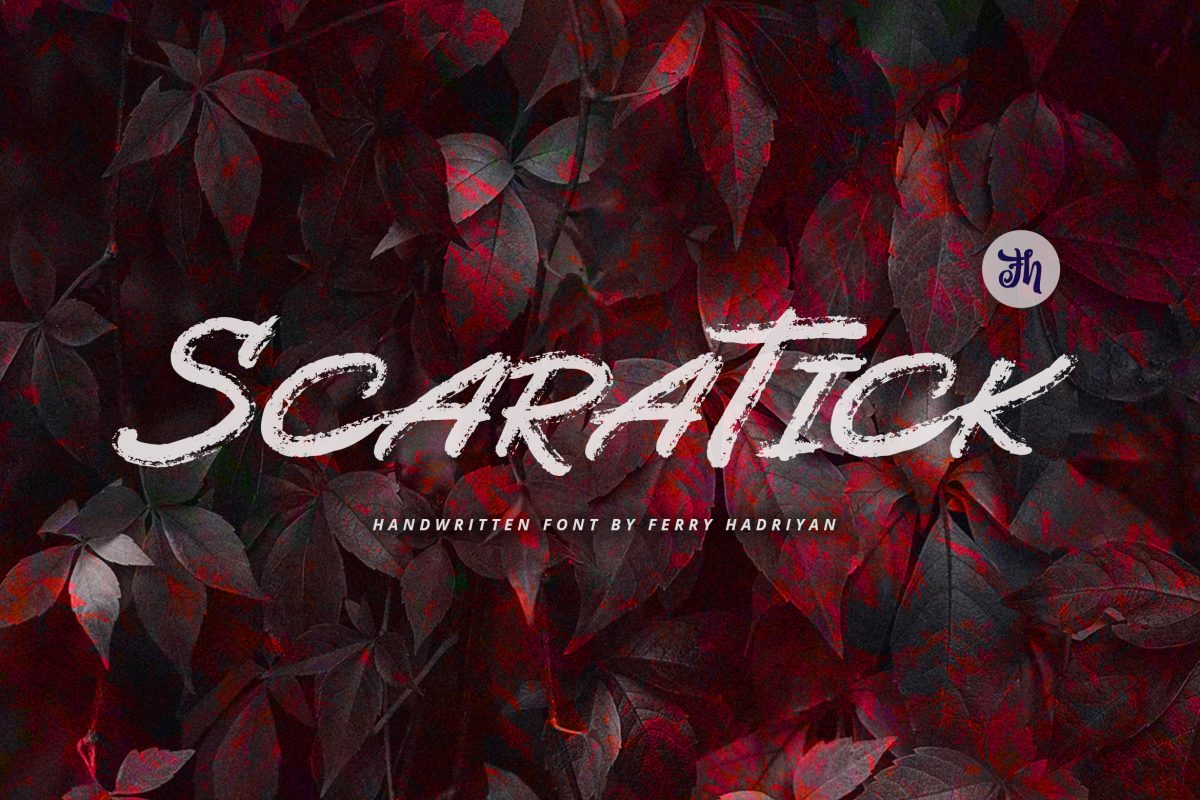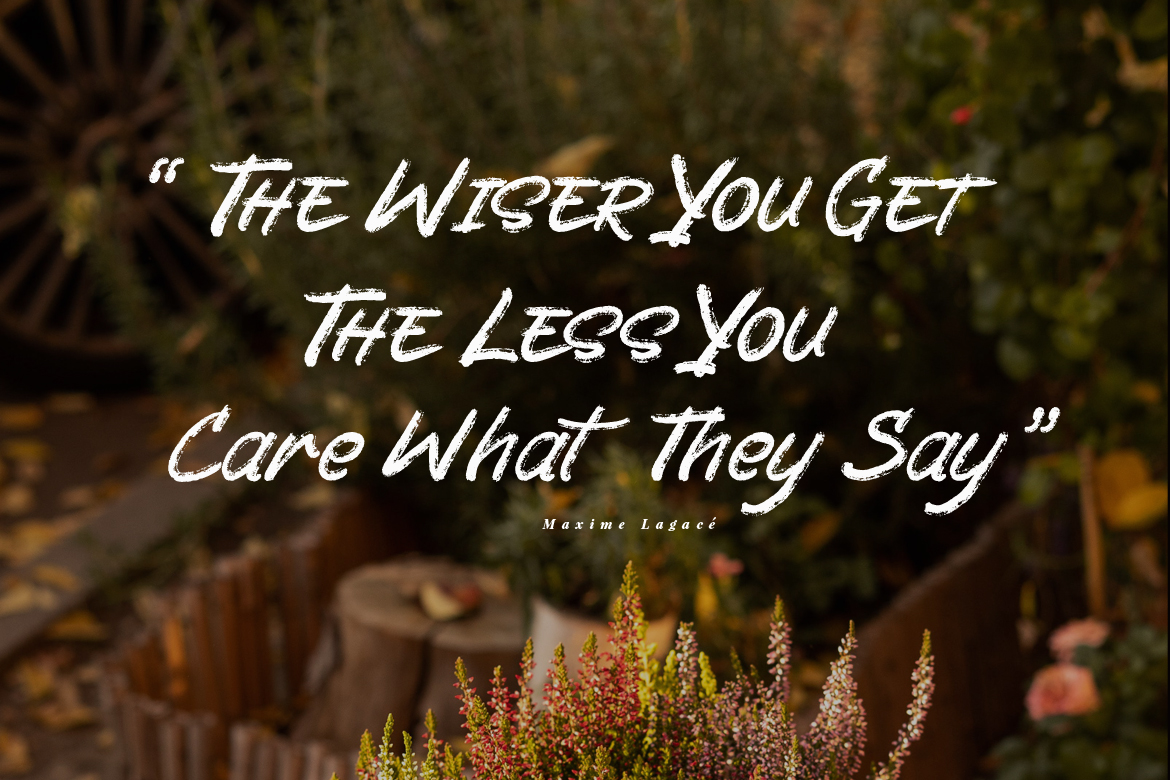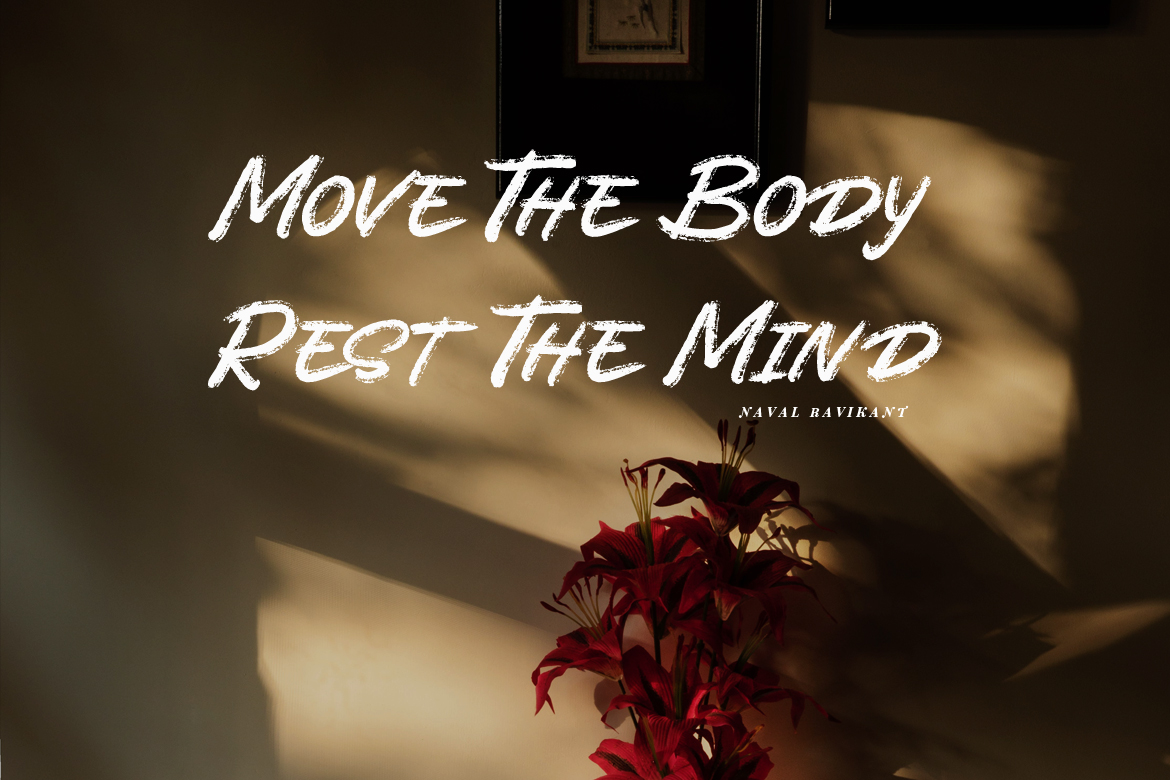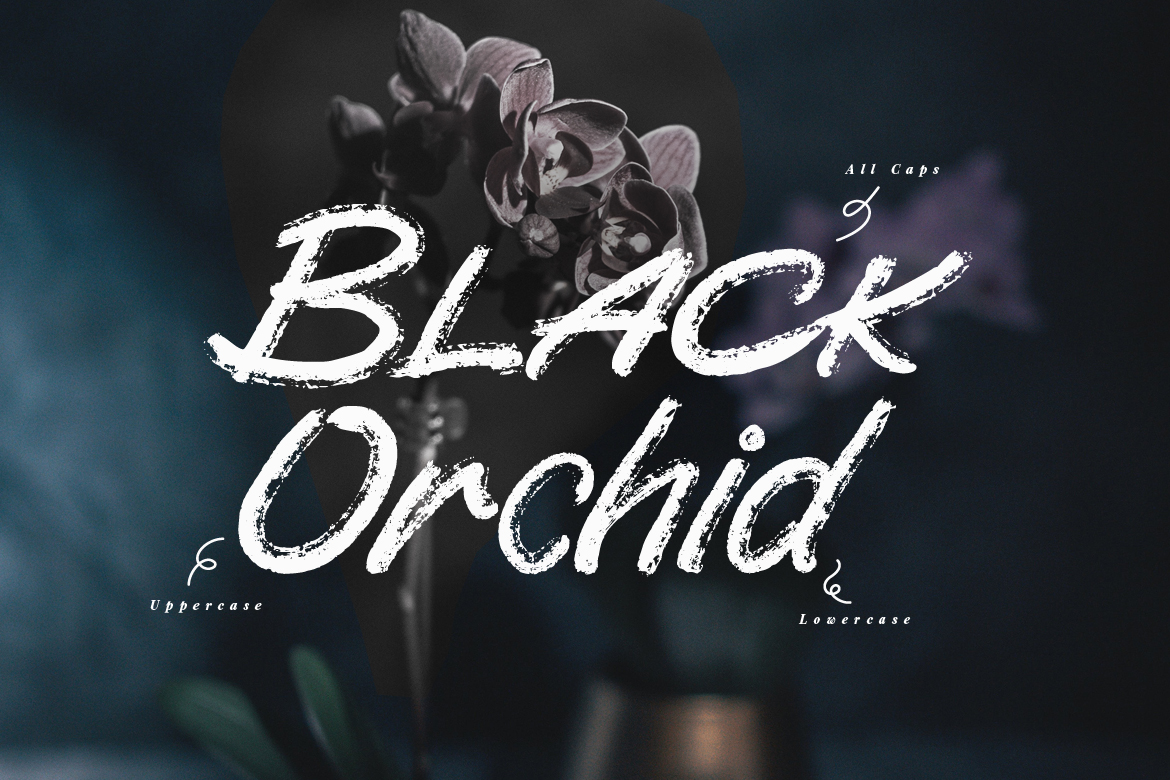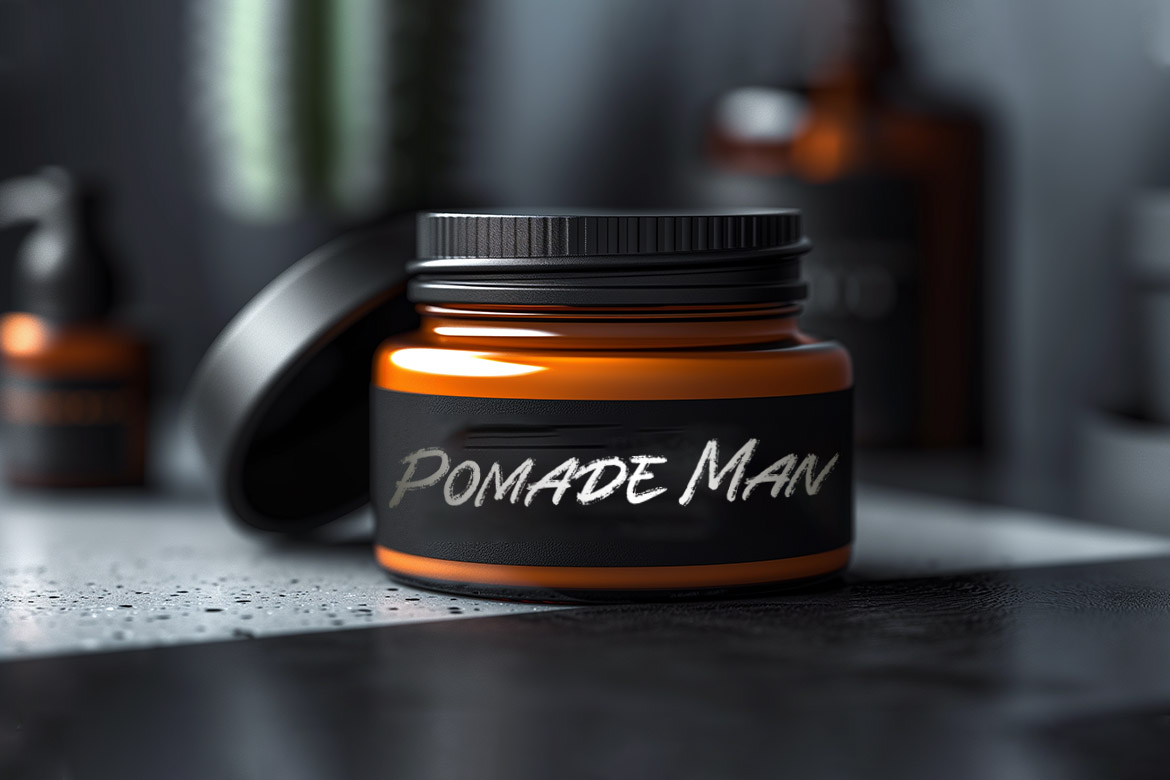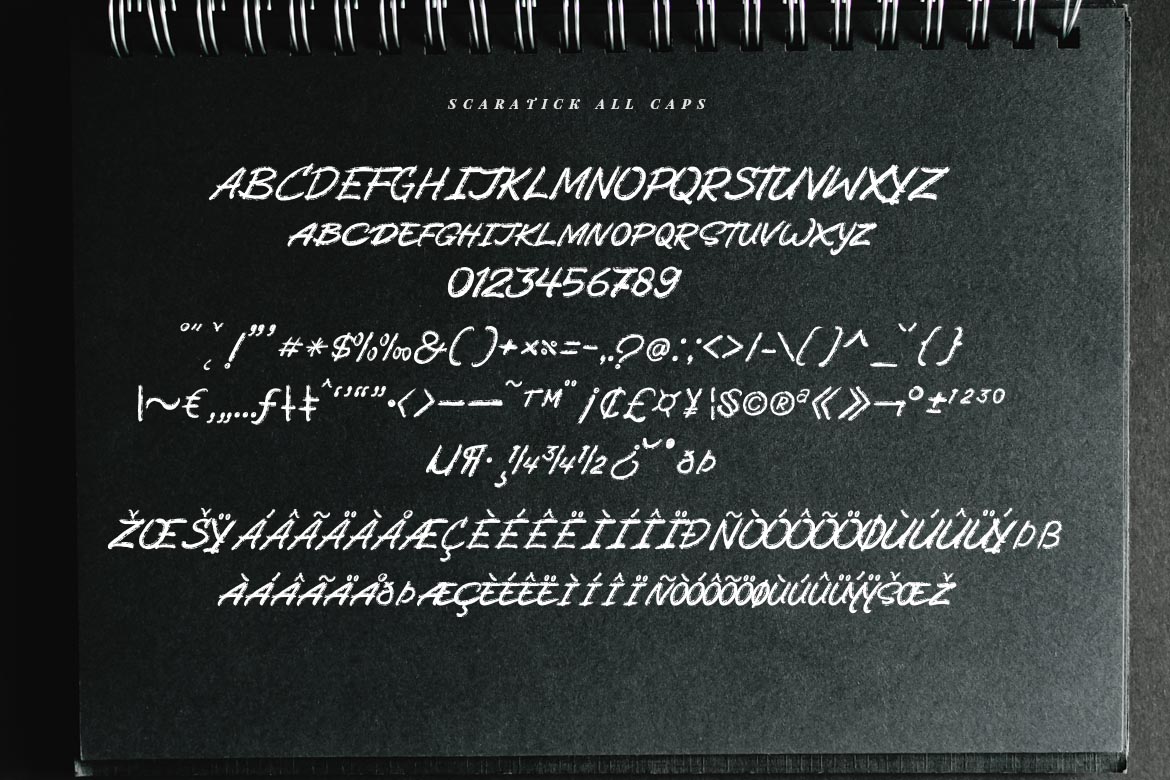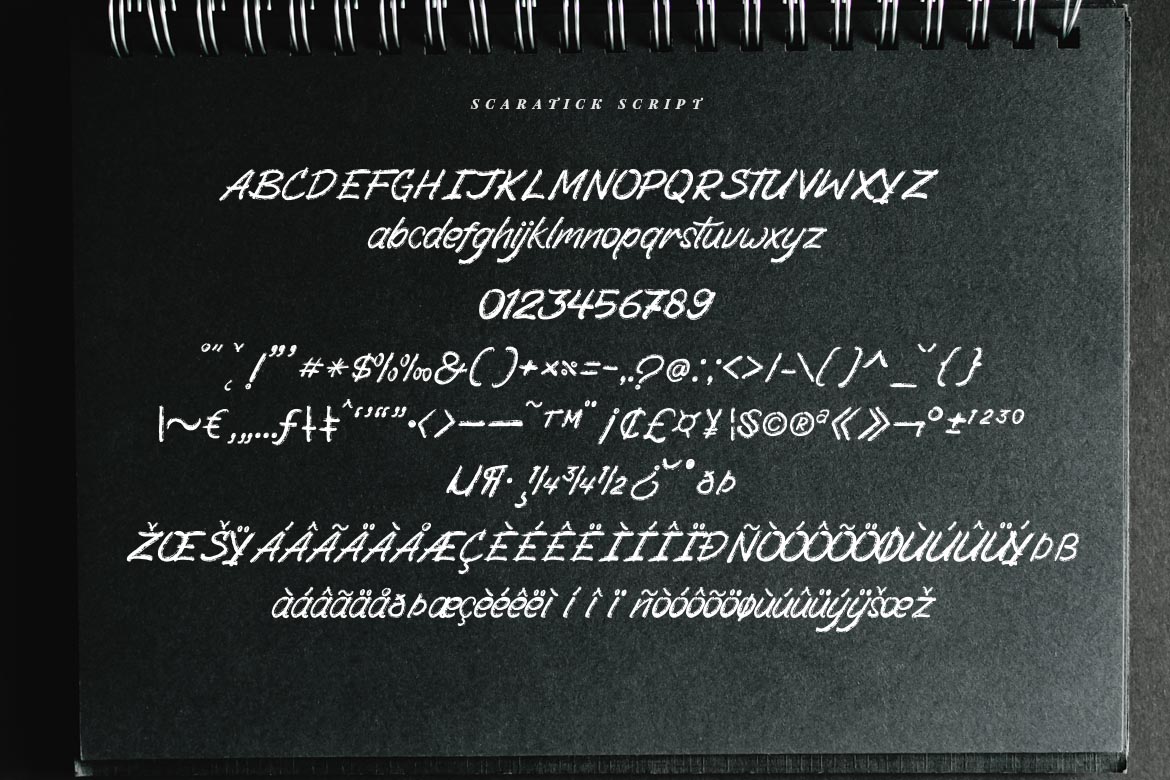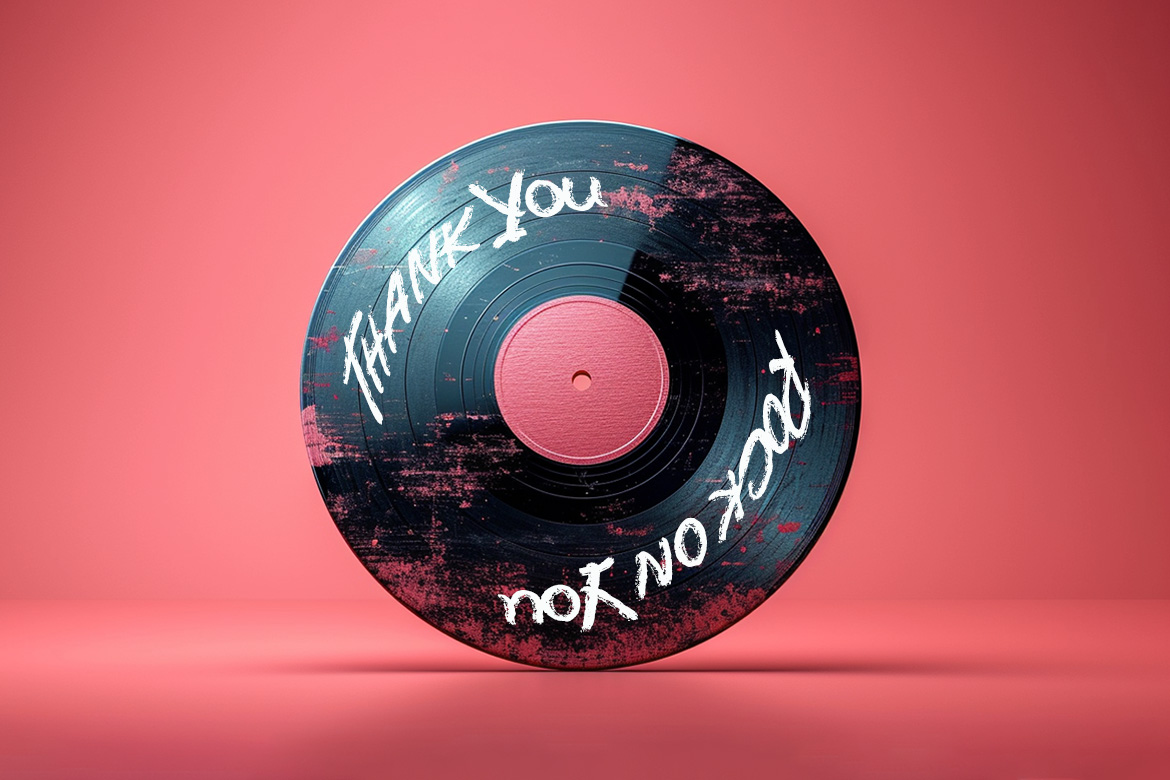
FH Scaratick – Handwritten Font
Scaratick Scipt
Scaratick All Caps
FH Scaratick – Handwritten Font Family
Scaratick is a script font with a handwritten and grunge dry brush style, and the OpenType feature is included. Suitable for design, element design, events, logo, awesome work, etc…
– All Standard Characters, Symbol, Multilanguage
– Unique style fonts